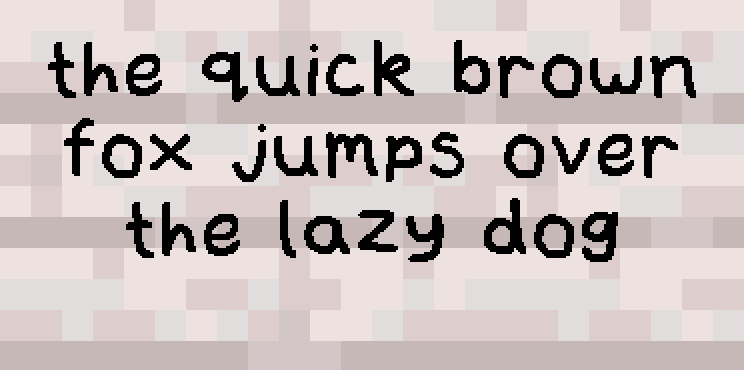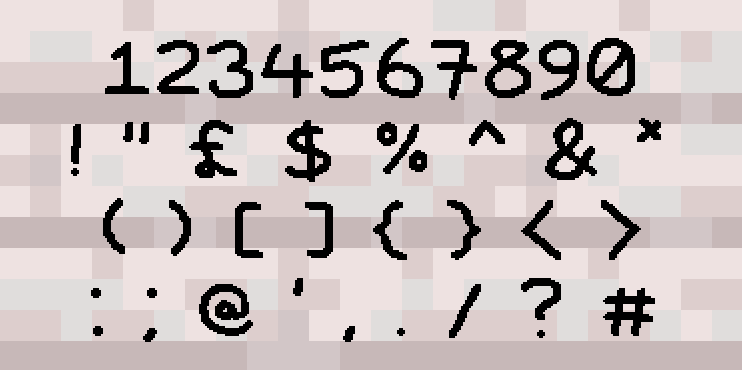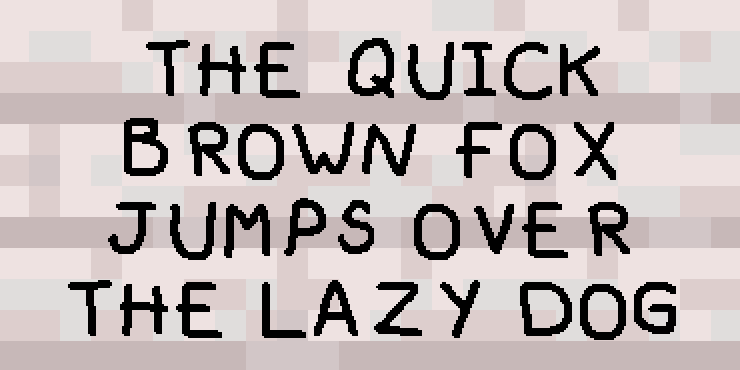
Doodle Font
A bold and playful custom font pack that gives Minecraft text a doodle-style look.
Doodle Font v2.0.3 transforms Minecraft’s default text into a bold, playful doodle-style font that makes menus, chat, and UI elements stand out with personality. This pack is designed for players who want their game to feel fresh and fun while keeping text easy to read. Every letter has been carefully styled to capture a hand-drawn, doodle-like look that feels unique yet functional.
Perfect for survival, creative builds, servers, or roleplay worlds, Doodle Font brings a touch of creativity to your everyday gameplay. Whether you’re typing in chat, browsing the menus, or naming items, the font adds charm without sacrificing clarity.
Features:
- Bold doodle-inspired font that replaces the default Minecraft text
- Clean and easy to read, even during fast-paced gameplay
- Works seamlessly with menus, chat, signs, and UI text
- Designed to be fun, eye-catching, and unique